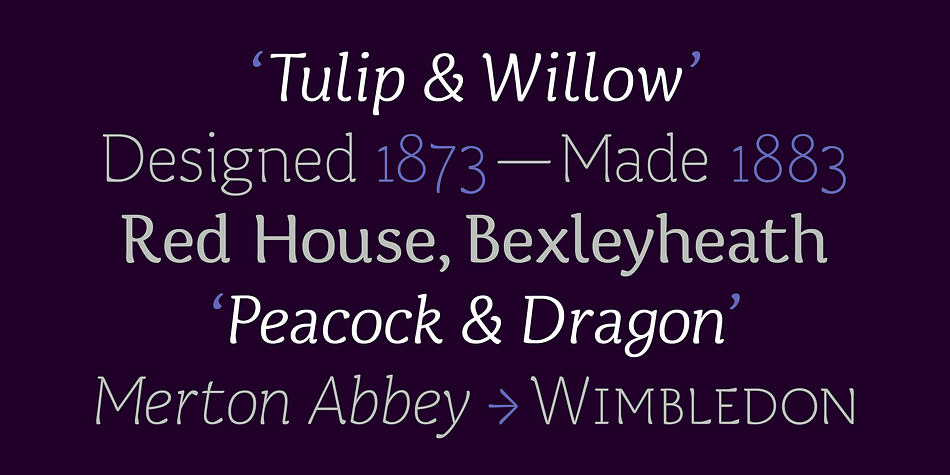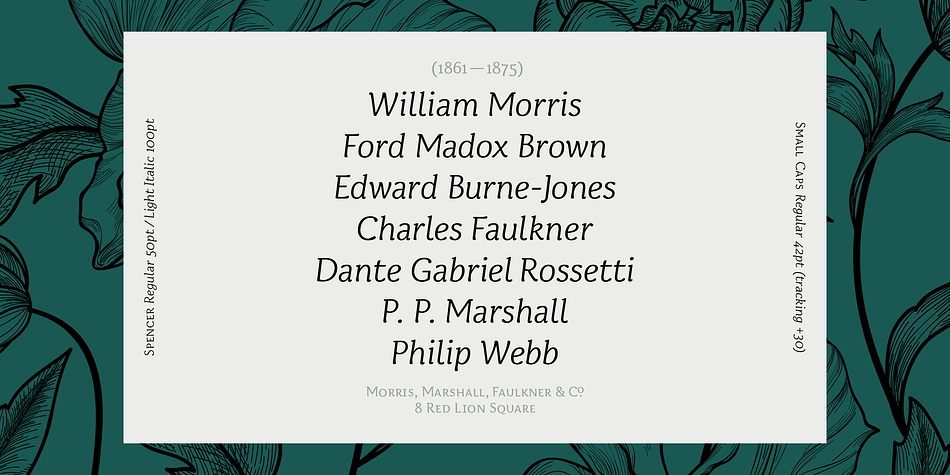
Spencer
Designed by Sofie Beier, Spencer is a serif font family. This typeface has ten styles and was published by The Northern Block.
Spencer is a calligraphic semi-serif type family that has been carefully designed to provide easily distinguishable letterforms that are practical in use, as well as aesthetically appealing. It’s natural and organic forms comes from a deep consideration of the efficiency of the visible word and provides the typeface with a distinct and unique voice.
Named after Herbert Spencer, an educator and researcher of legibility at the Royal College of Art in the sixties and seventies, and influenced by other early typographers and legibility researchers, such as Walter Tracy and John Harris. Spencer was designed as part of a legibility study by Sofie Beier and Kevin Larson.